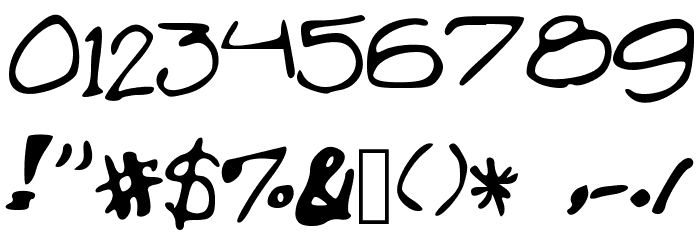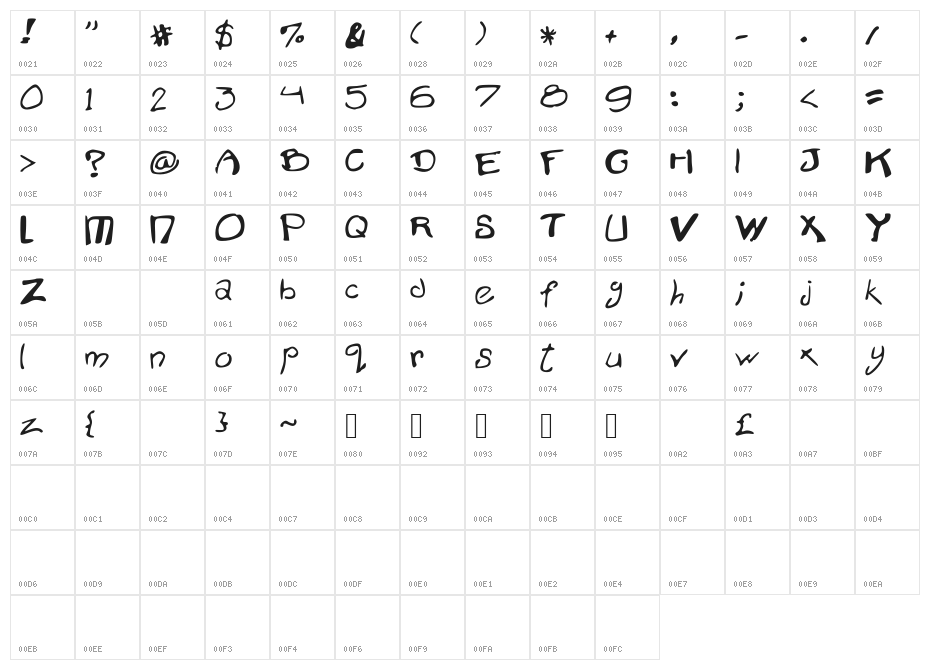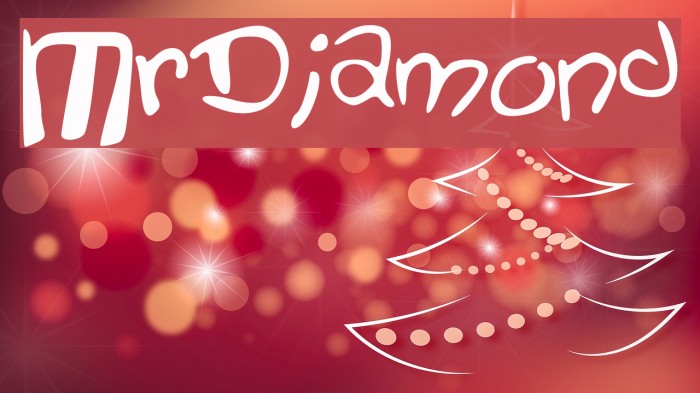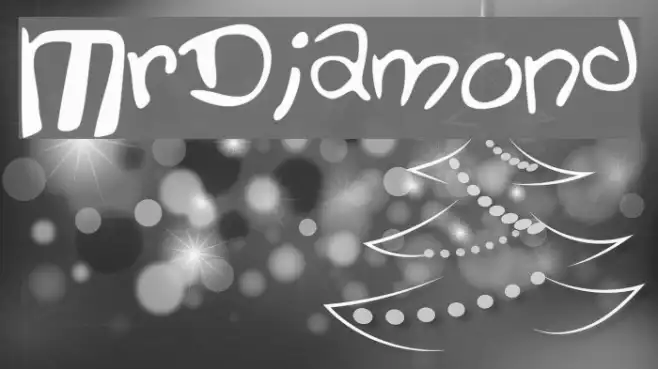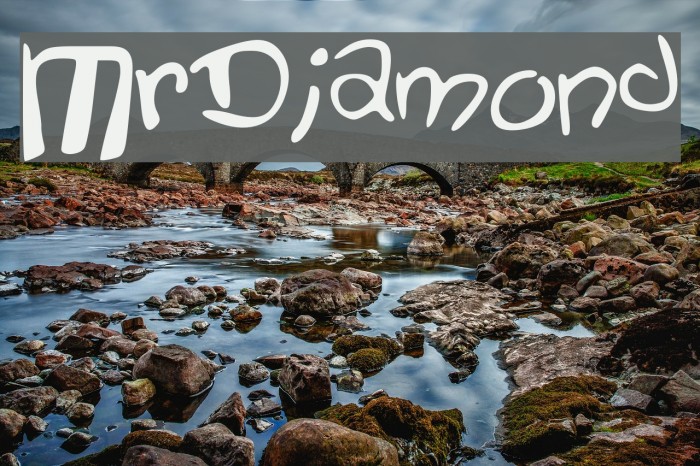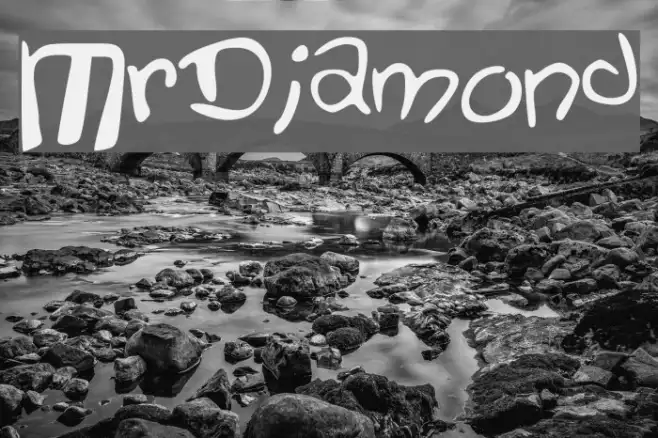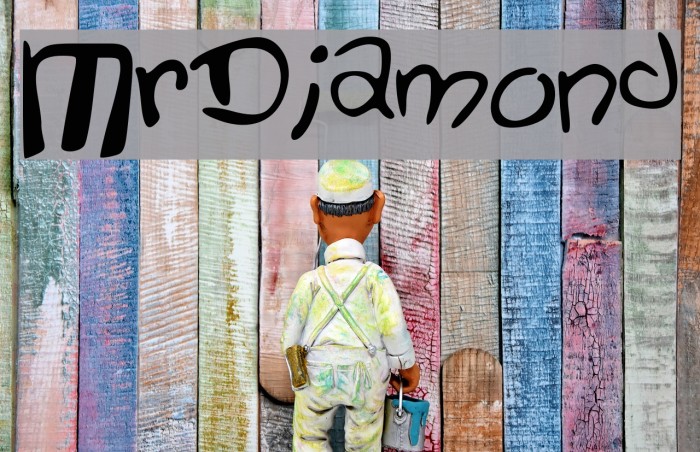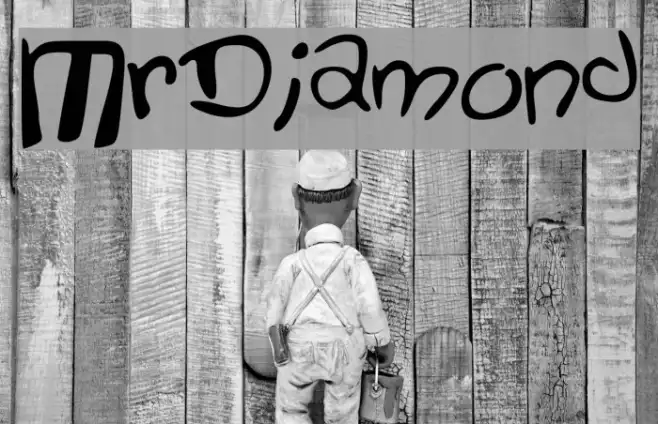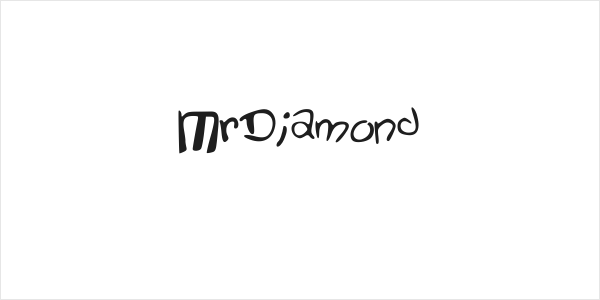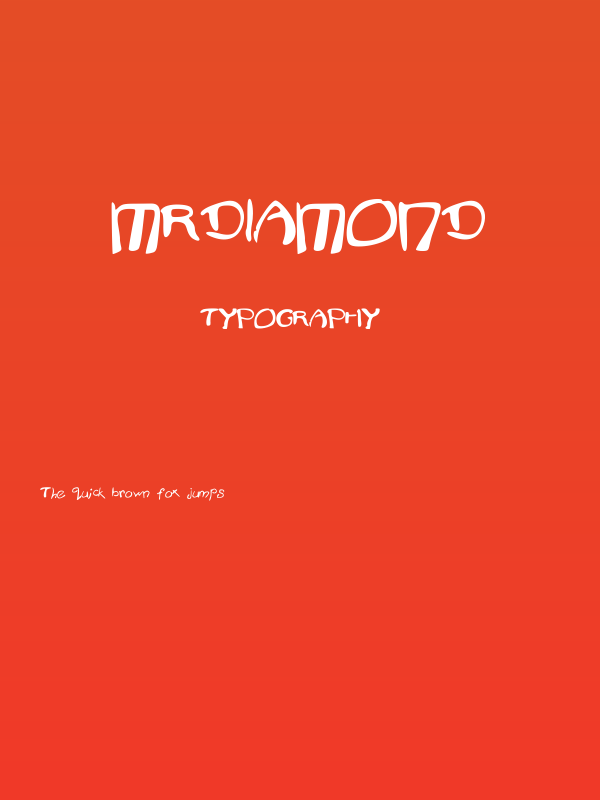
MrDiamond Font
MrDiamond Description
This font exudes a playful and dynamic energy, characterized by its bold and irregular strokes. The letters have a hand-drawn appearance, with varying thickness that adds a sense of movement and spontaneity. The uppercase letters are bold and slightly condensed, while the lowercase letters maintain a whimsical flow. The numbers and special characters follow the same lively style, making them stand out with their unique shapes. This font is perfect for projects that require a touch of creativity and informality, such as children's books, playful branding, or artistic posters.
| Proposed Projects | Ideal for children's books, playful branding, artistic posters, and creative designs. |